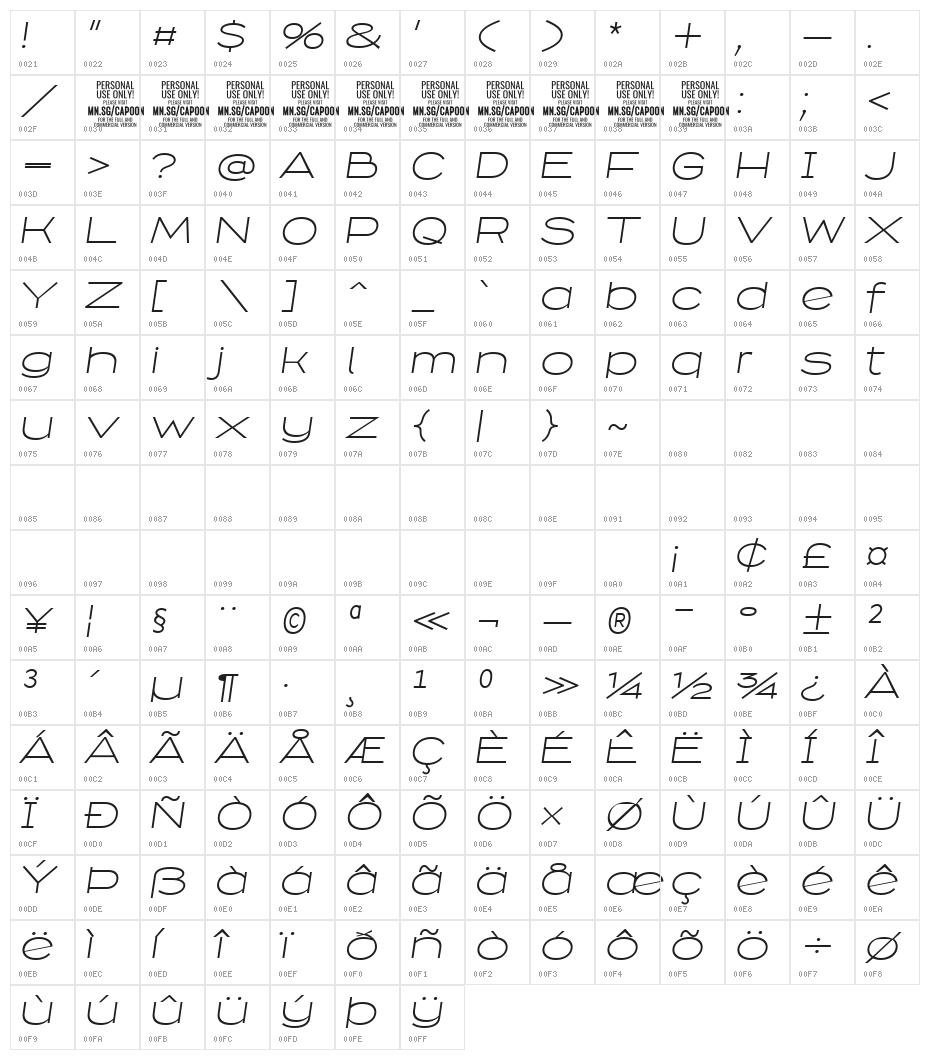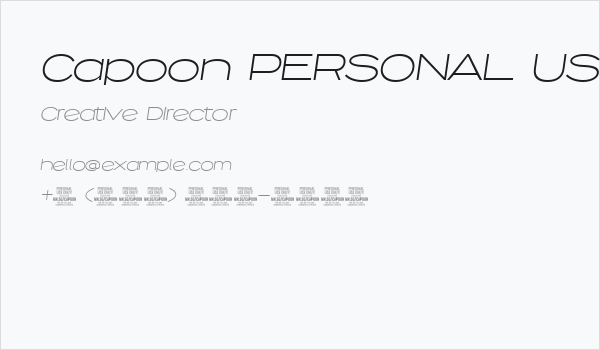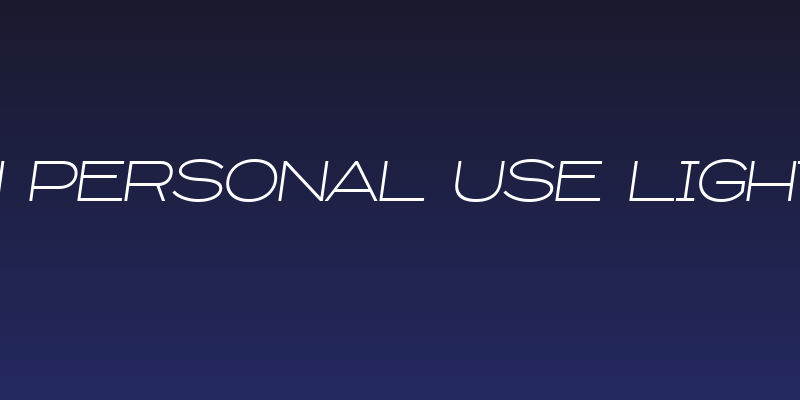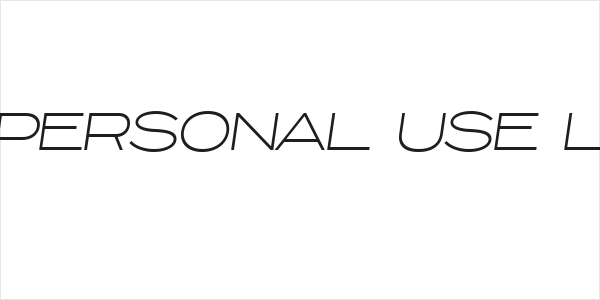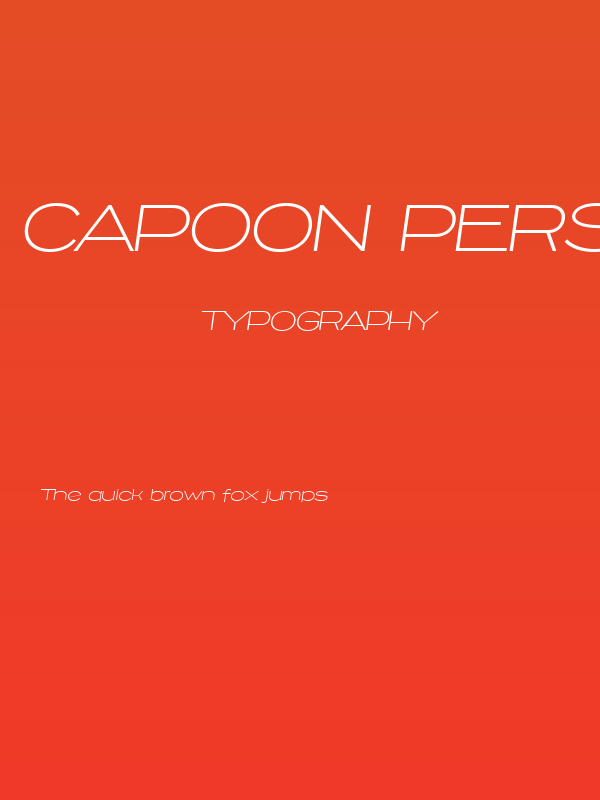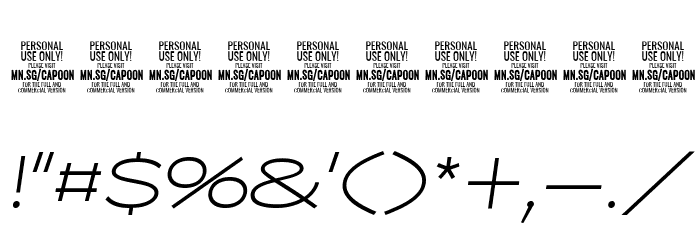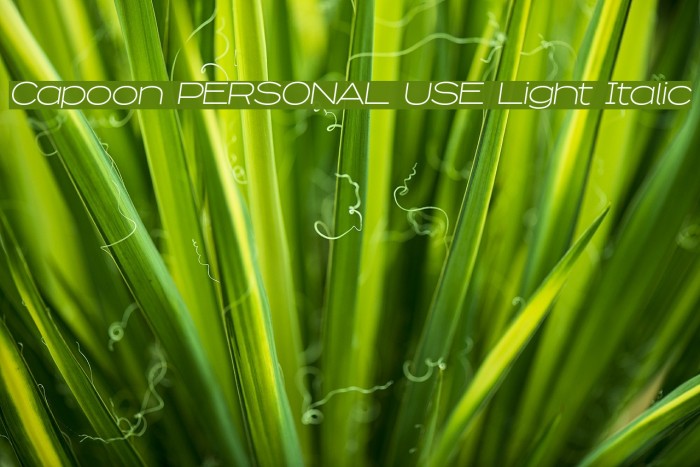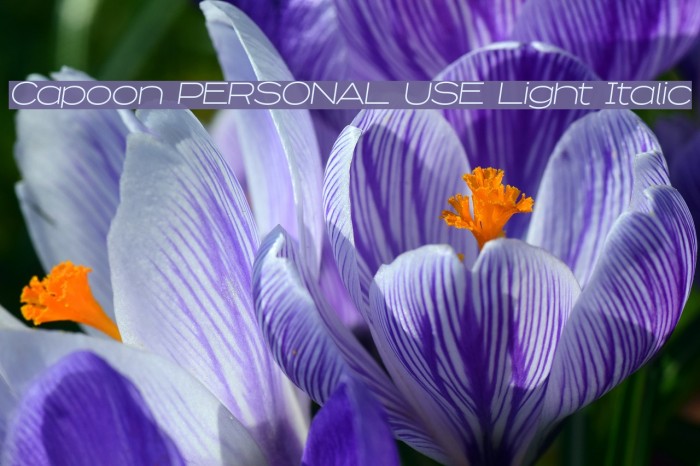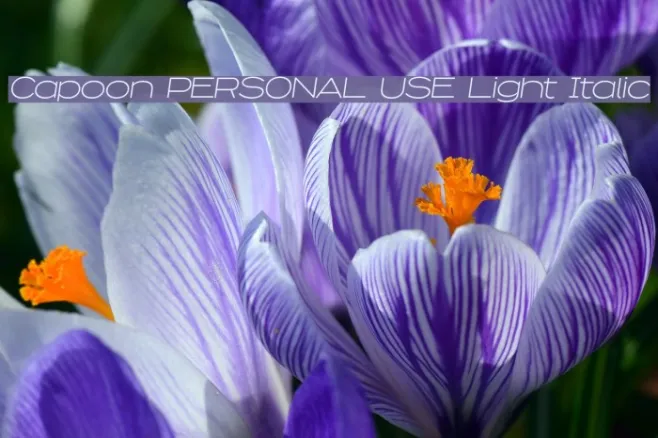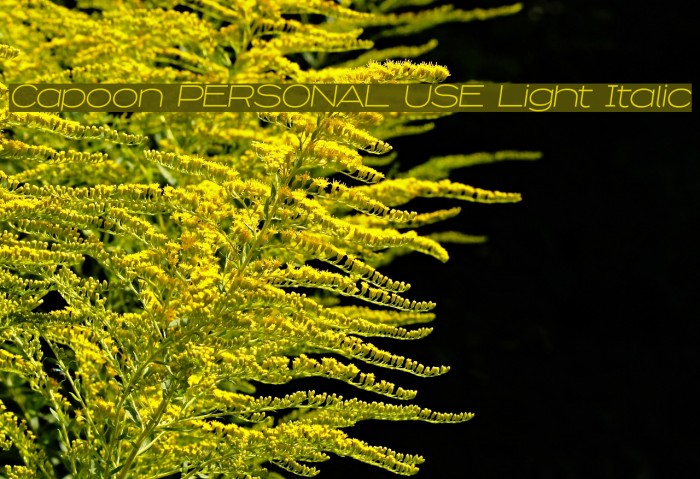
Capoon PERSONAL USE Light Italic Font
Capoon PERSONAL USE Light Italic Description
This font features a sleek and modern design with a light and italicized style. The characters are elongated and slightly slanted, giving a sense of motion and elegance. The strokes are thin and consistent, providing a clean and airy appearance. The uppercase and lowercase letters maintain a uniform height, contributing to a cohesive look. The numerals and special characters are designed to match the overall aesthetic, ensuring versatility in various applications. The font's minimalistic approach makes it suitable for contemporary designs, where clarity and sophistication are desired.
| Proposed Projects | Ideal for modern branding, fashion magazines, elegant invitations, and minimalist web design. |